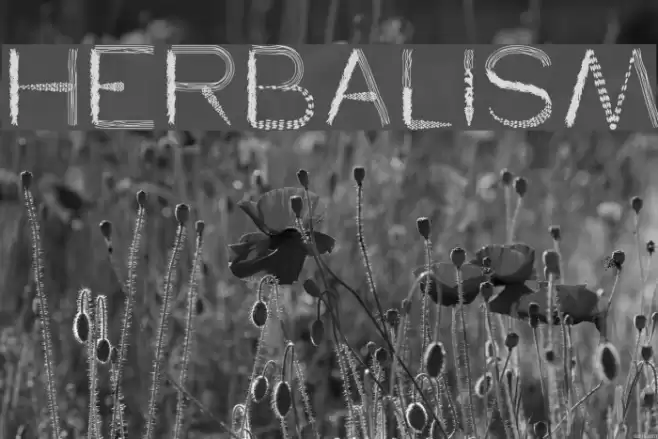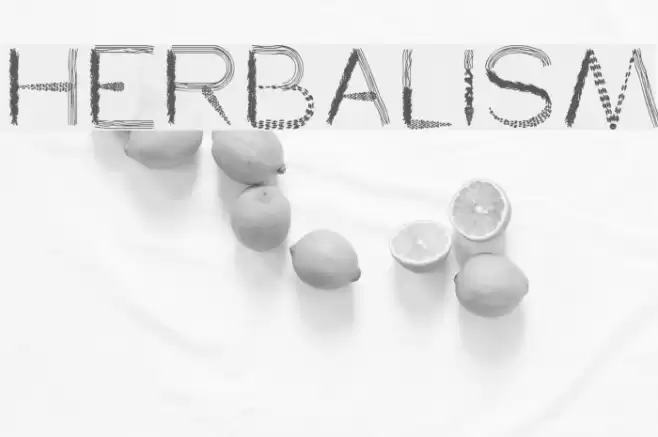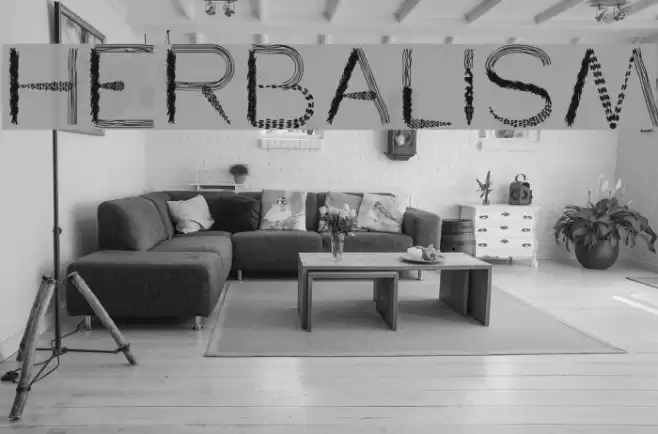
herbalism Font
This font features a unique and artistic design, characterized by its intricate patterns and textured strokes. Each letter is crafted with a combination of lines and dots, creating a dynamic and visually engaging appearance. The uppercase letters exhibit a bold presence with a modern twist, while the lowercase letters maintain a consistent style. The font's distinct texture gives it a handcrafted feel, making it stand out in any design project. Its artistic flair and attention to detail make it suitable for creative and expressive applications.
A textured, artistic font with intricate line and dot patterns from Uncategorized fonts.
- Proposed Projects: Ideal for artistic projects, branding, posters, and creative designs that require a unique and expressive typeface.
- Overall Style: Modern, Artistic